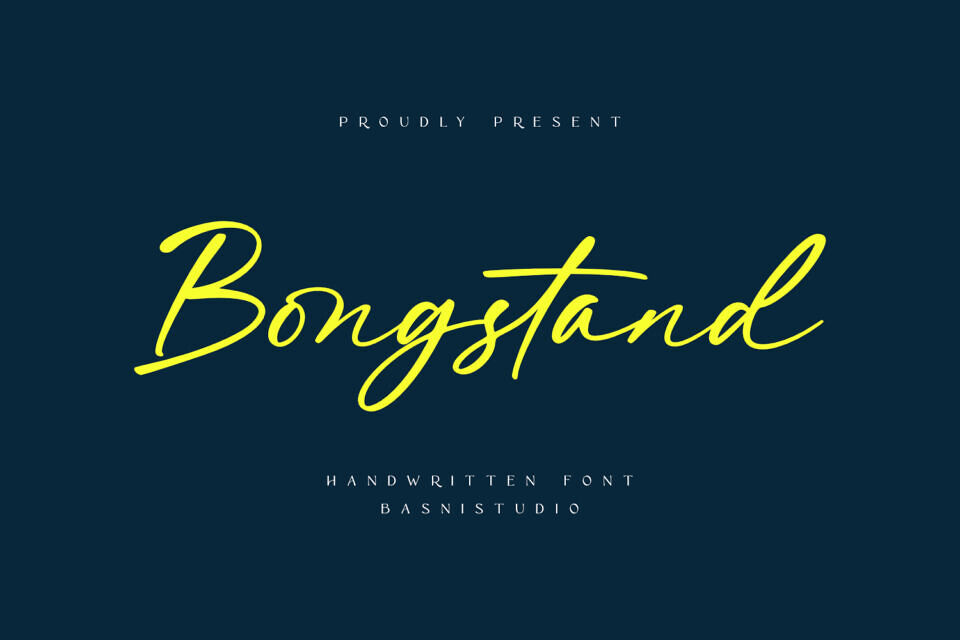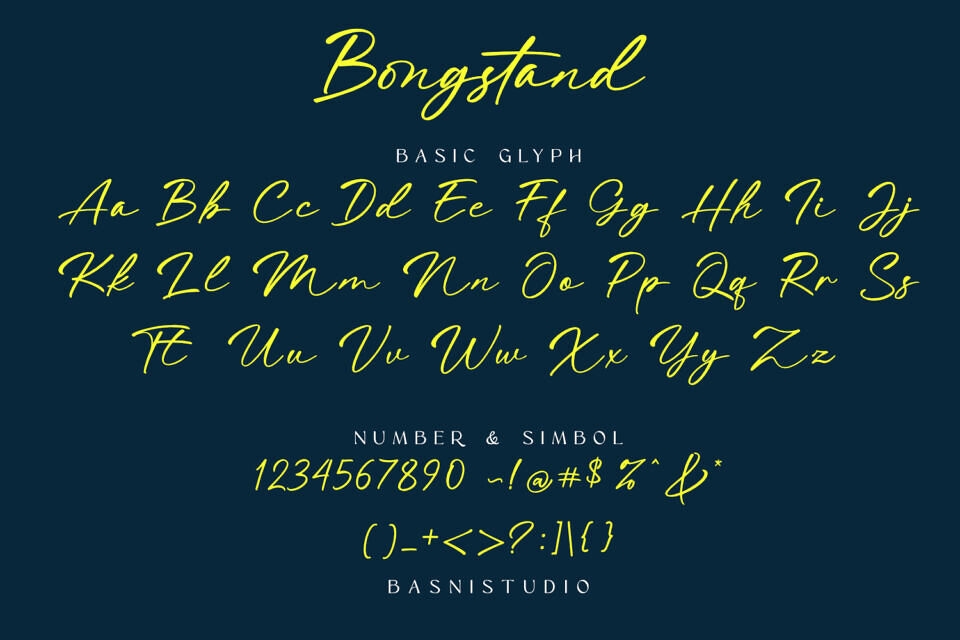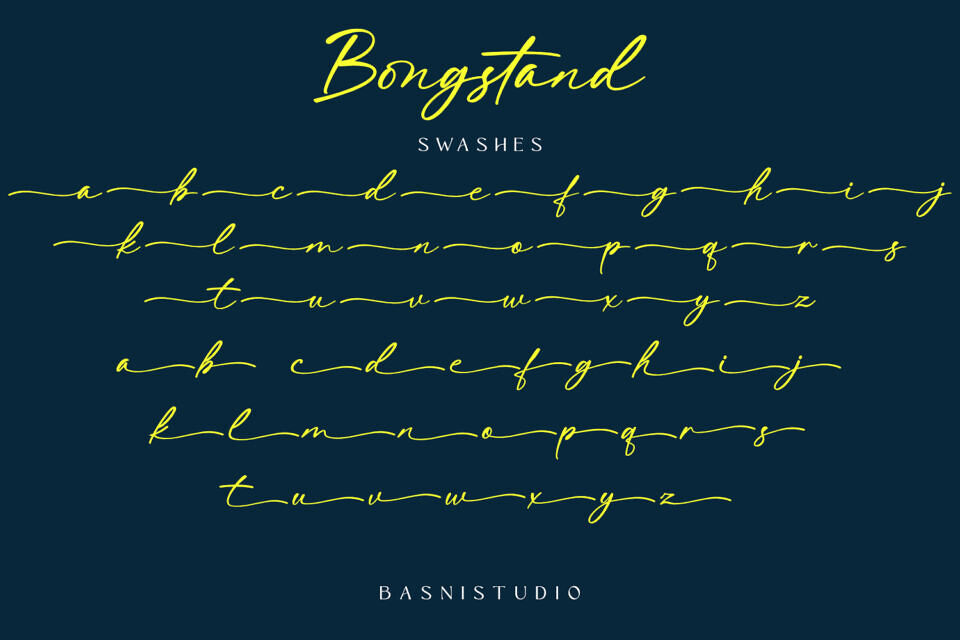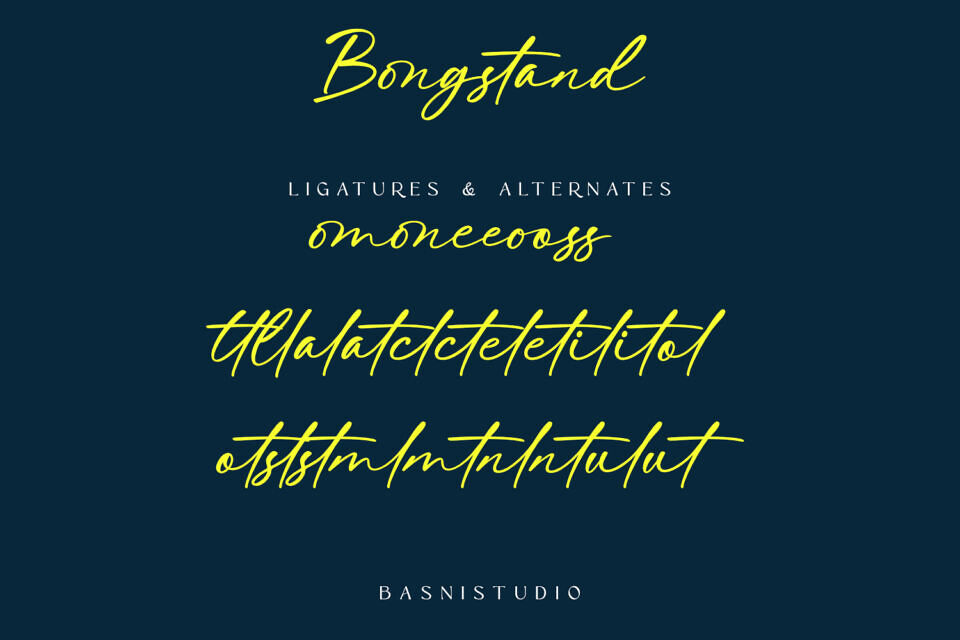
Bongstand Font
This elegant handwriting font is designed to add a personal touch to various projects, from branding and social media to invitations. Created with real pen strokes, it gives a natural and authentic feel. Easy to use, it works well with major design programs, making it perfect for taglines, quotes, and greeting cards, and helping you create a unique brand identity.
Designed by: Basnistudio